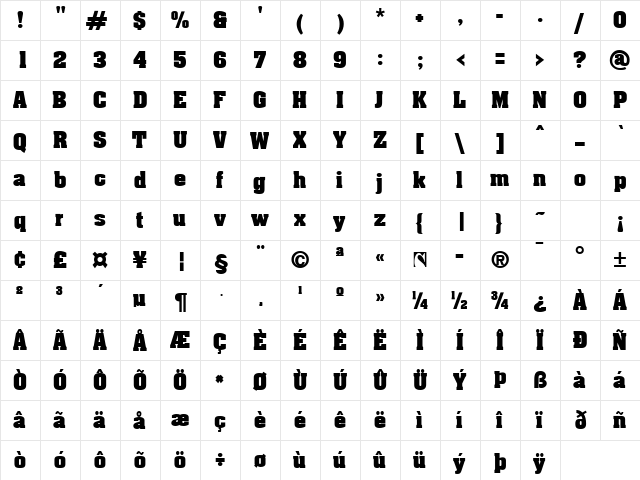
Aardwolf Regular
Design Context for Aardwolf Typeface
Aardwolf takes a measured approach to typography — its balanced proportions and neutral character make it a reliable workhorse for both digital and print work.